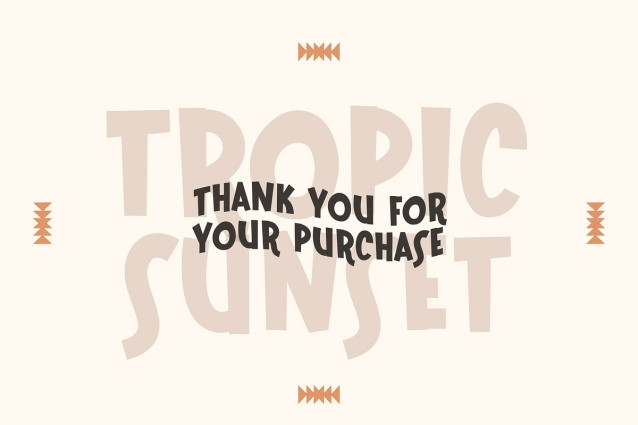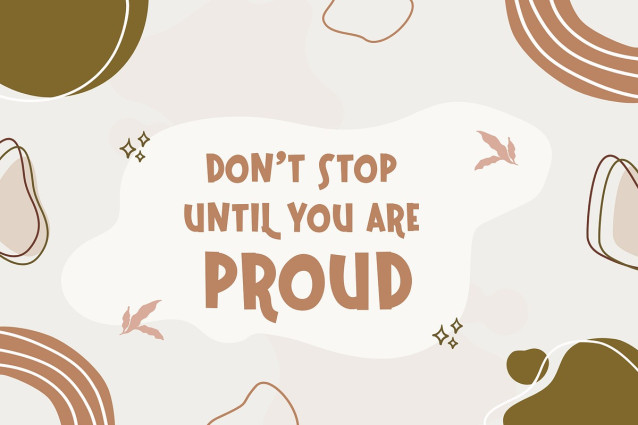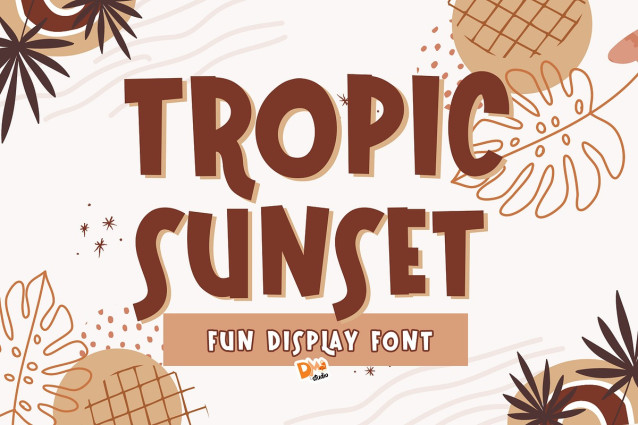
Tropic Sunset Font
Tropic Sunset Font is a vibrant and tropical typeface that brings the warmth and beauty of a sunset in the tropics to your design projects. With its flowing letterforms and exotic charm, this font is ideal for adding a touch of paradise to invitations, branding, packaging, and more.